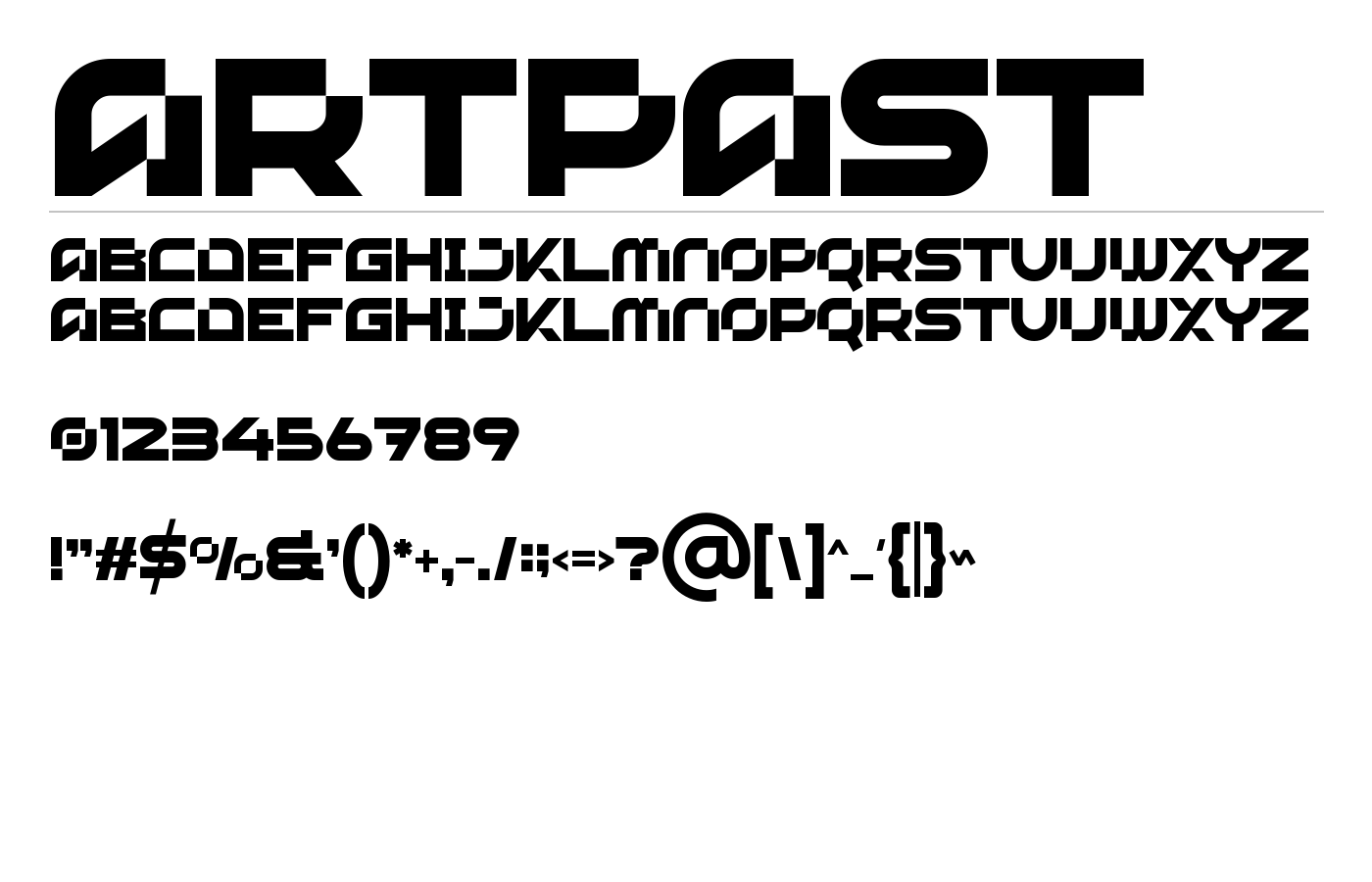
Artpast is a bold, geometric sans serif font with a futuristic and tech-inspired style, featuring strong, blocky shapes and sharp angles that create a distinctive, modern look. Its wide letterforms and consistent stroke weights give it a sturdy, impactful presence, making it ideal for bold headlines, logos, and branding projects that seek a cutting-edge, graphic edge. This font works best in creative industries or digital designs where a contemporary, assertive vibe is desired.
Artpast Font
About Artpast Font
| Font family | Artpast Font |
| Designer | Maikohatta |